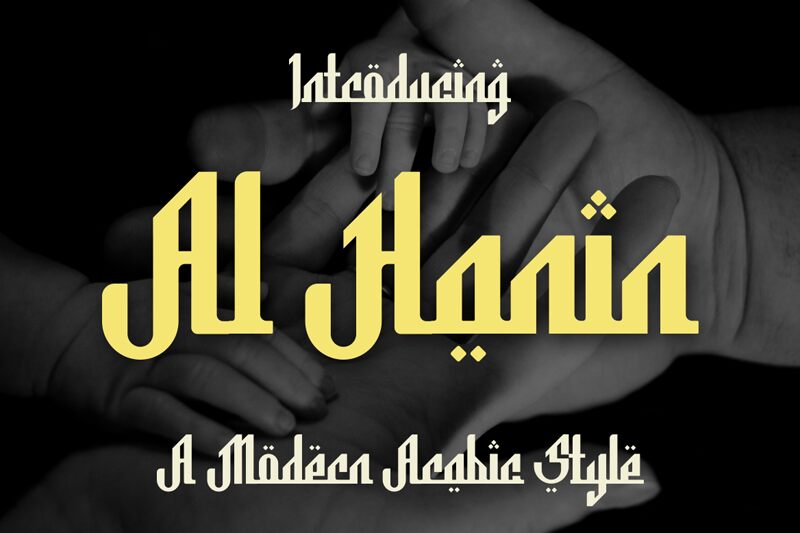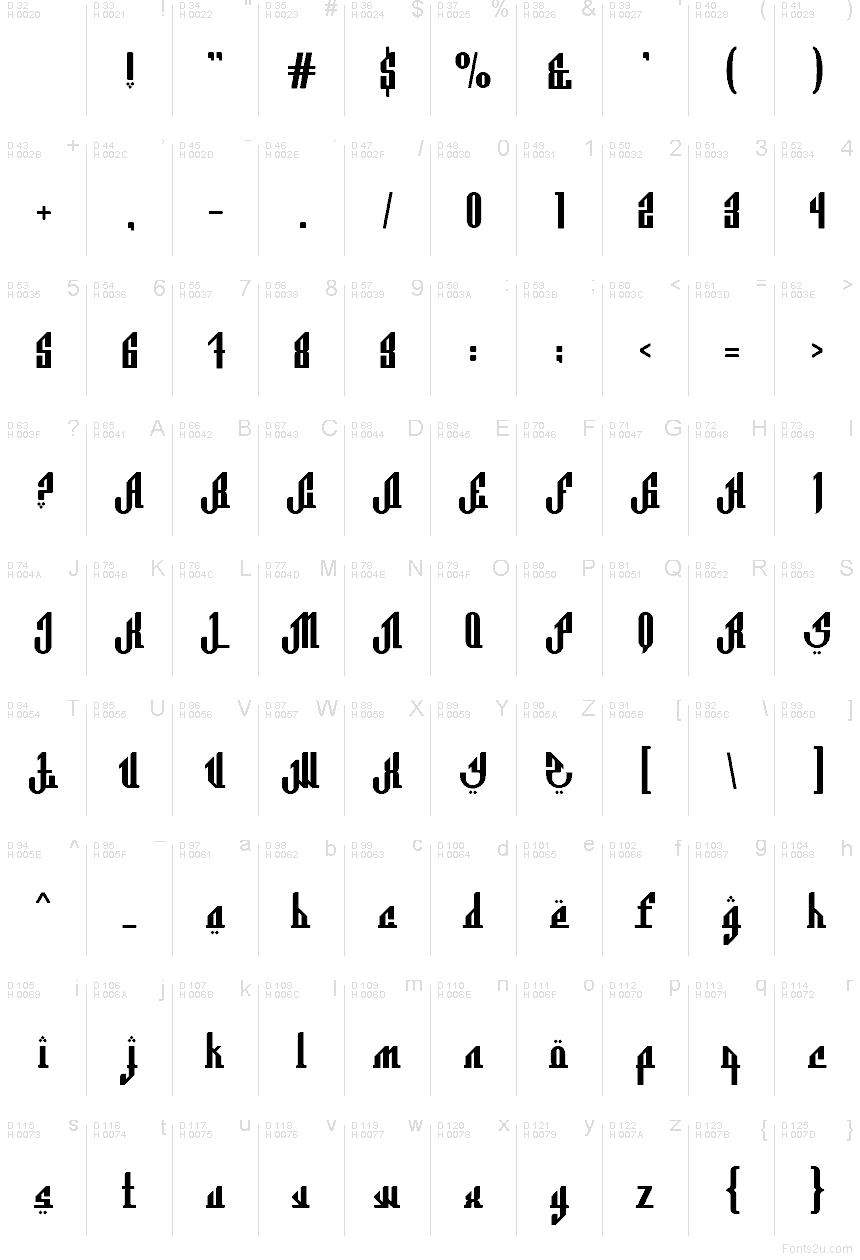
Al Hanin
Al Hanin font by Gilang Ternadho of Maikohatta is a free foreign faux Arabic typeface that gives Latin letters a bold Middle Eastern flair. Heavy strokes, squared curves, and the stacked diamond dots echo Arabic calligraphy while staying clean and legible for non-Arabic readers. The letters feel carved and architectural, creating a strong, rhythmic word shape that instantly sets a scene.
Using Al Hanin, you can brand hookah lounges, Middle Eastern restaurants, Ramadan or Eid event posters, travel brochures, themed packaging, or festival signage with a cohesive mood. This free font shines at larger sizes where its chunky forms and decorative dots can breathe. Pair it with a simple geometric sans for body text and small labels to keep the overall design grounded and readable.